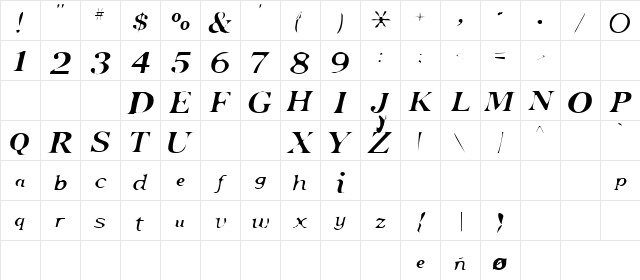
Pensmooth Normal
Design Context for Pensmooth
Pensmooth is a composed and adaptable typeface that performs quietly and consistently across a wide range of design contexts.
Pro Tip: Use Pensmooth in both headline and body roles to test its range before committing to a single application.